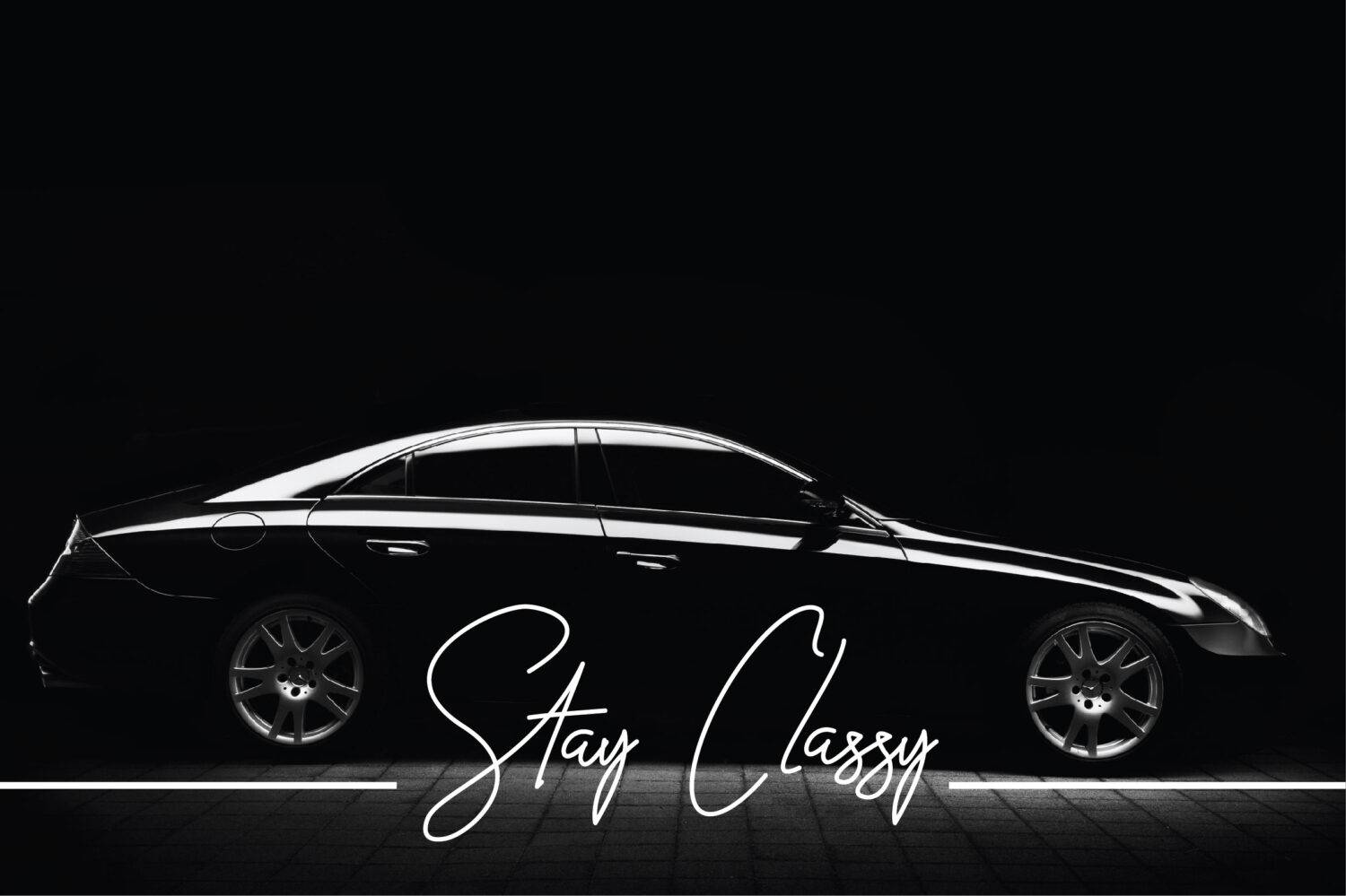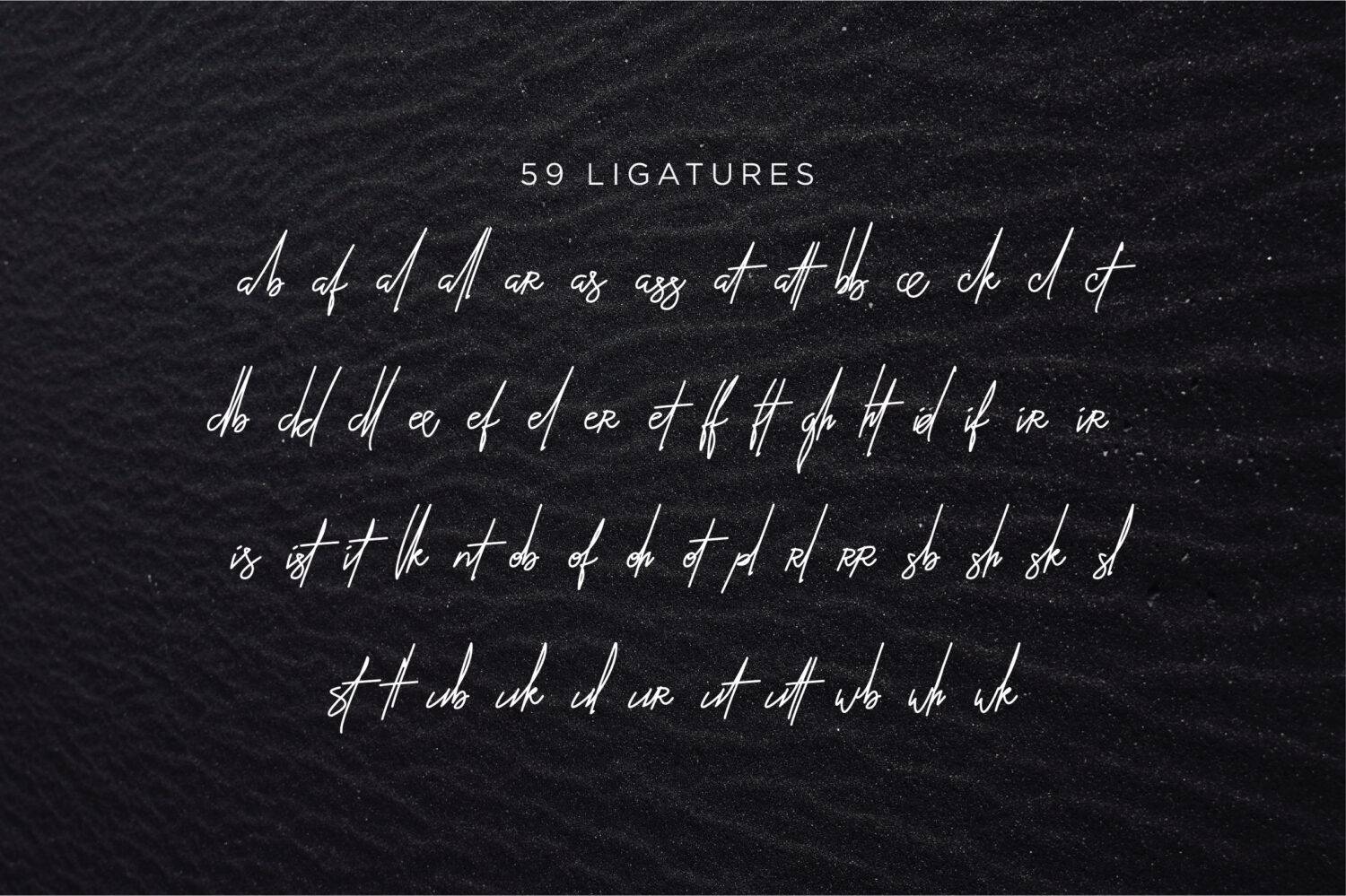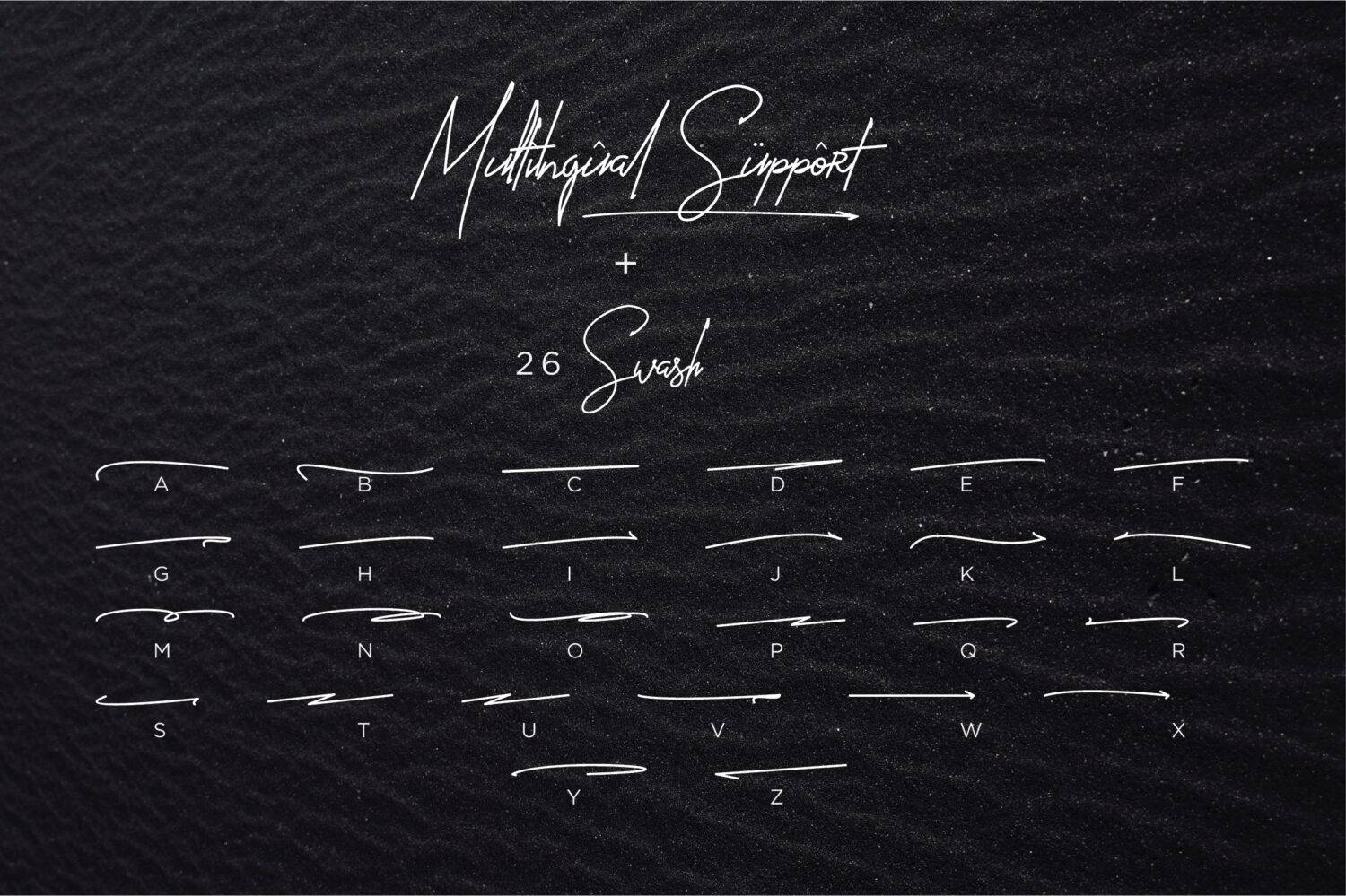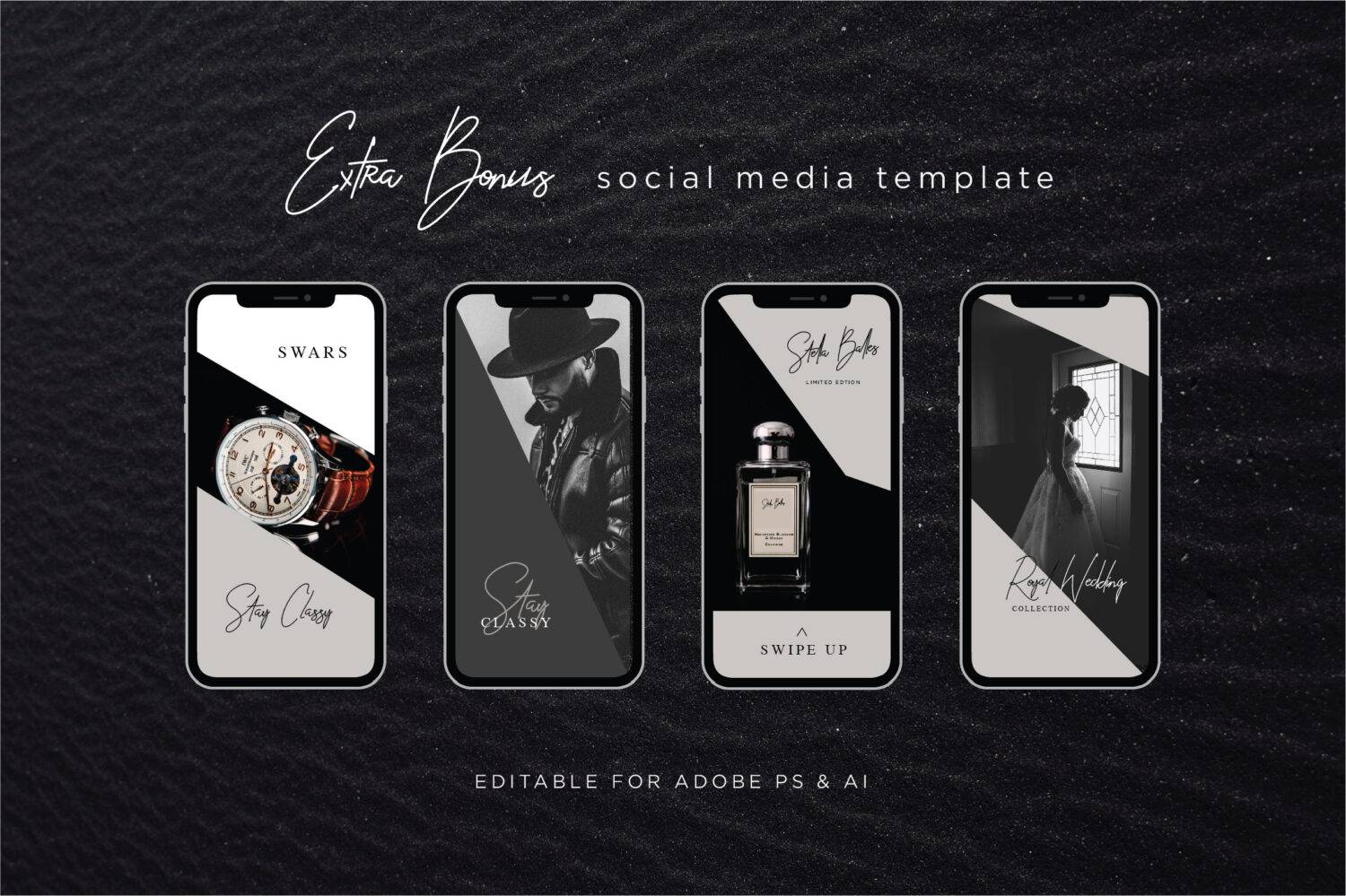
Ballistick is a delicate, handwritten script font featuring thin, flowing strokes that create an elegant yet casual appearance. Its tall, narrow letterforms and slightly irregular lines give it a personal, artistic touch, making it ideal for creative projects, personal branding, and invitations where a sophisticated but relaxed style is desired. This font works beautifully in large sizes for headlines or logos, adding a graceful, handwritten charm without overwhelming the design.
Ballistick Font